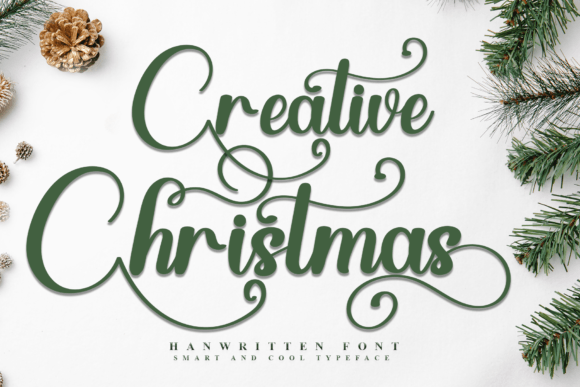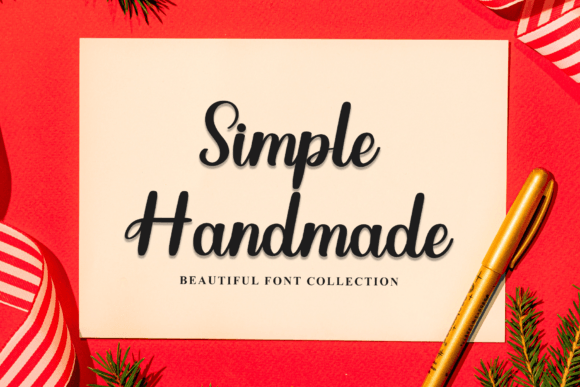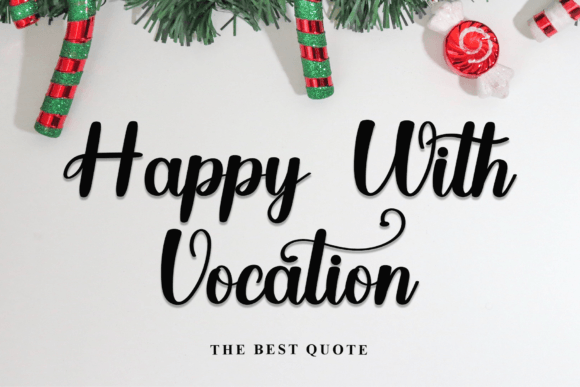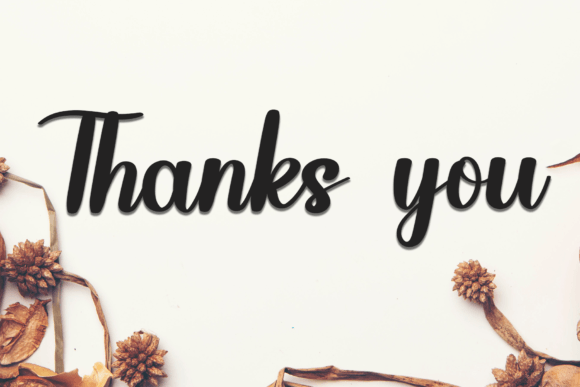
Creative Christmas Font
Creative Christmas Is a beautiful and attractive font. Fonts created with a soft touch, unique and distinctive from a stroke, have a good meaning and meaning for the future. Has many characters that can be used for design needs, handicrafts, and many more interesting designs.